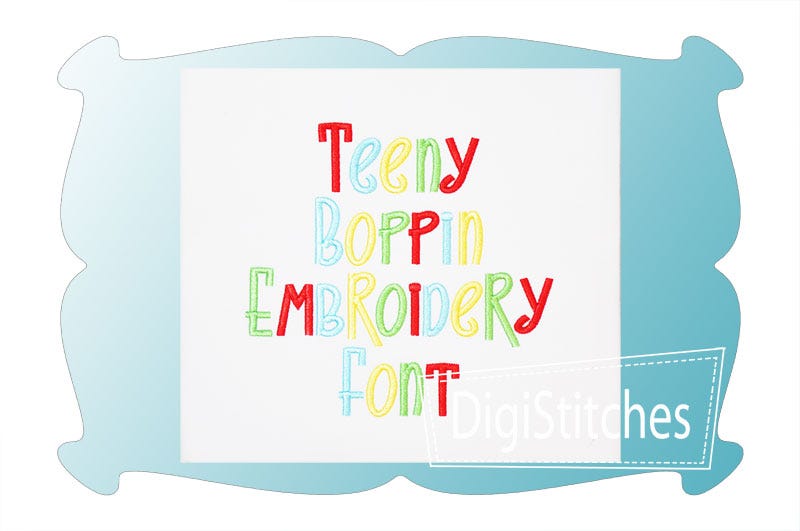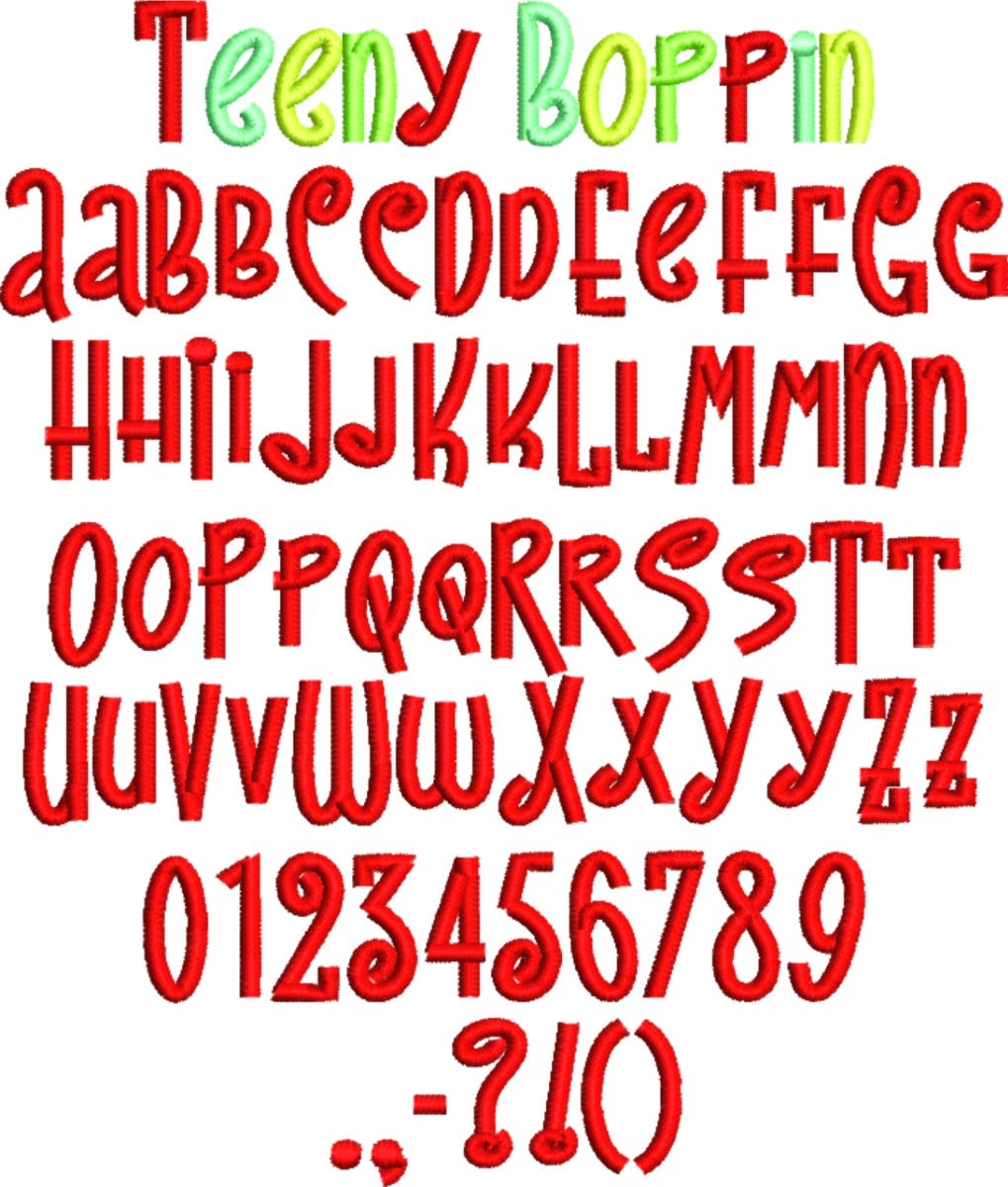
Teeny Boppin Satin Stitch Embroidery Font
Teeny Boppin Embroidery Font
Teeny Boppin embroidery font features super bold letters that really stand out on t-shirts and projects.
This fun and wonky font is great choice for both boys and girls!
Upper case letters A trhu Z, lower case letters a thru z, numbers 0-9, punctuation as shown.